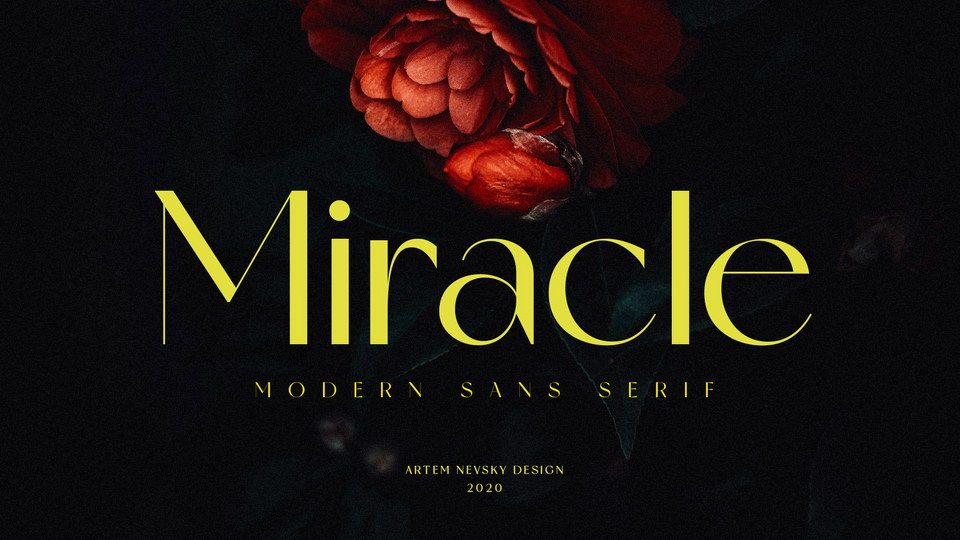
Download Miracle font, a modern high contrast display typeface with a touch of elegance and chic. Miracle font is perfect for your future design project in fashion, media, branding.
Designer: Artem Nevsky